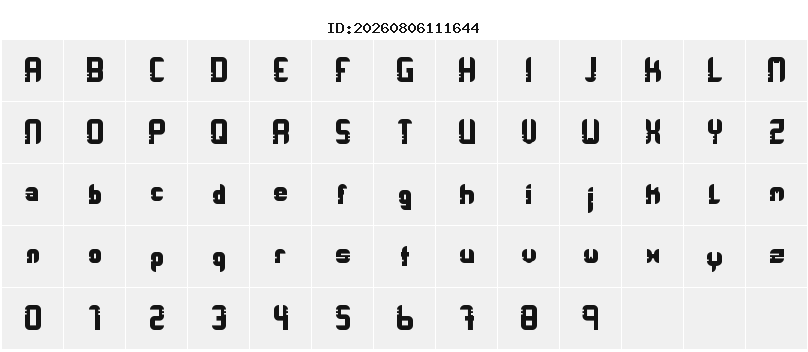
• Font Name: Orbit Racer
• Designer: Chris Fiedler
• Description: Modern Sci-Fi Font
About Orbit Racer.ttf
Orbit Racer.ttf is a modern, elegant sans-serif font designed for ultimate readability and visual harmony. Perfect for branding, headlines, web design, and print materials.